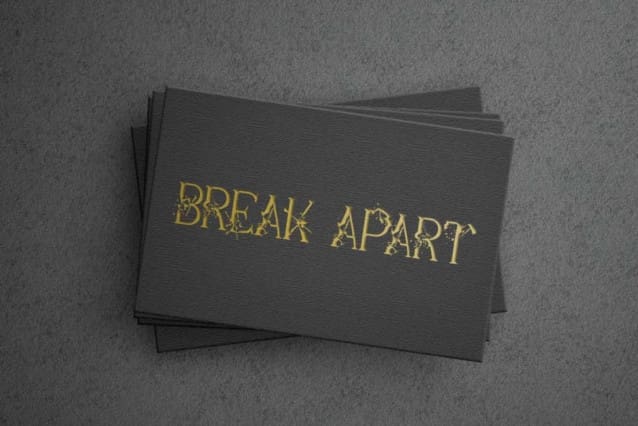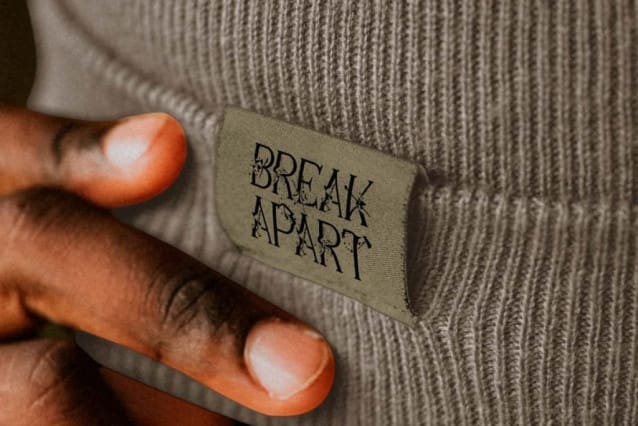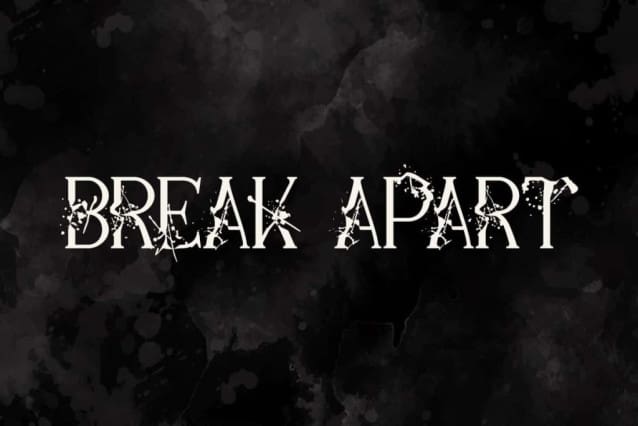
Break Apart Font
Break Apart Font is a unique serif display font with fraction decoration on each letter the font looks so creative and awesome. This font also gives a scary impression but can still be read clearly and stylishly, so it will be very suitable for banner, blogs, brochure, cover, card designs, flyer, headline, invitation, label, menu, poster, t-shirt screen print, template, title, website, and more.
Break Apart Font includes full set of ALL CAPS for Uppercase and Lowercase Basic Characters, Numbers, Punctuation, and Symbols. The decoration is indeed different from the usual, presenting the aesthetic appeal of this font which is not only unique, but also modern and has wide flexibility. It is an ideal choice for advertising, apparel, cafes, fashion, film, graphic design, menswear, web designer, and much more.